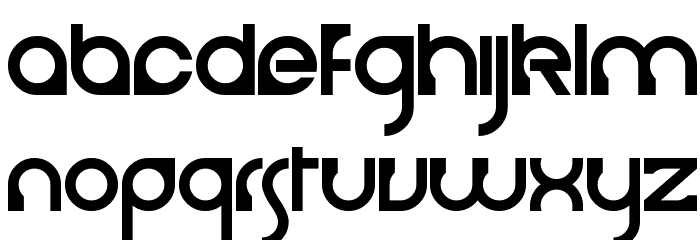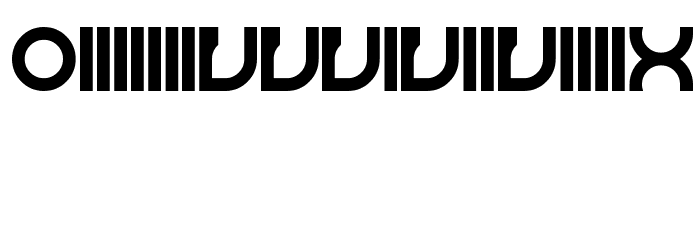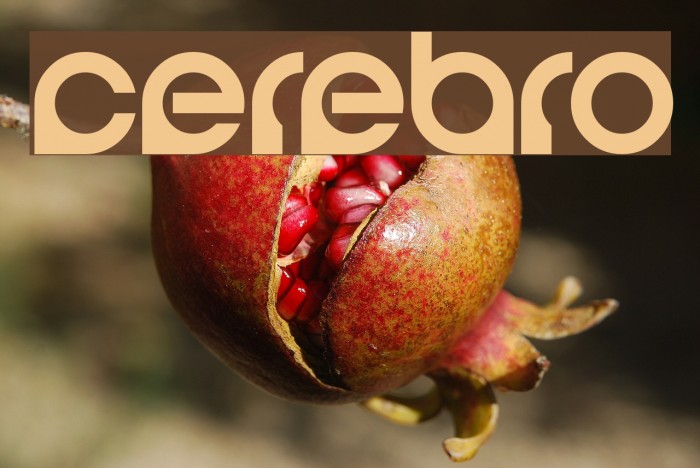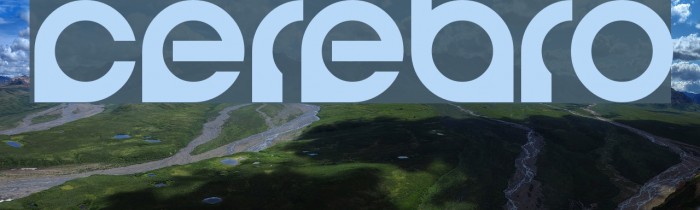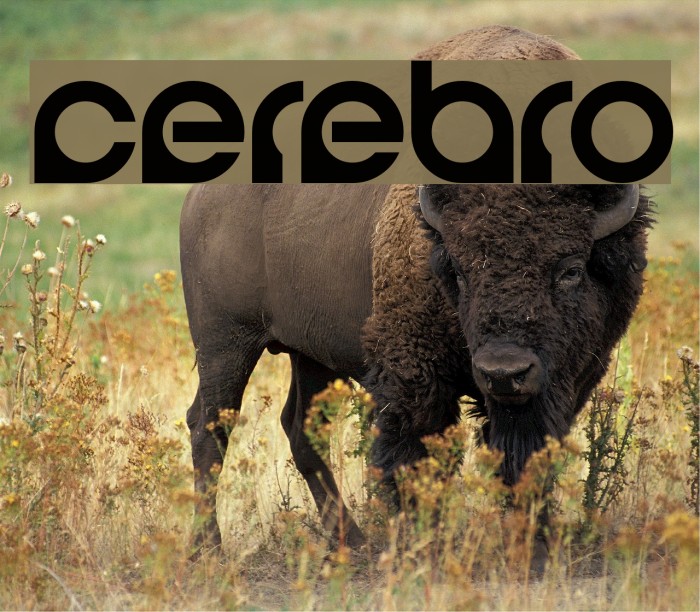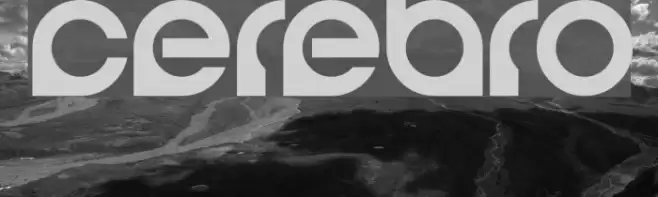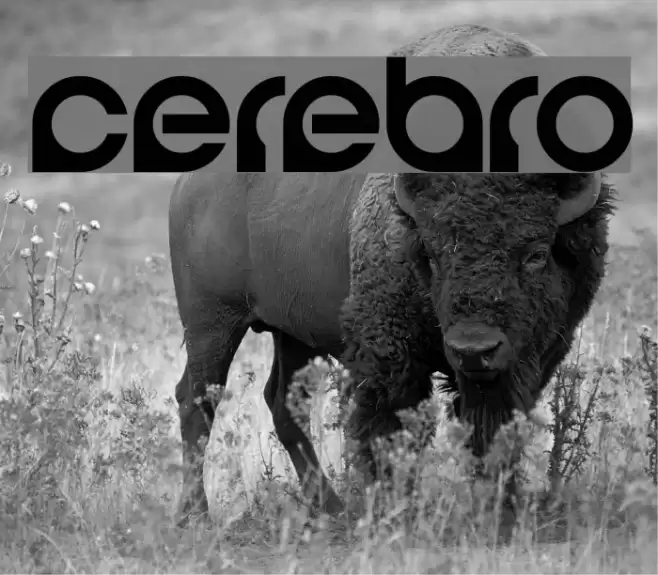
Cerebro Font
This font features a bold, geometric design with a futuristic and modern aesthetic. The characters are constructed with clean, circular shapes and straight lines, creating a harmonious balance between curves and angles. The uppercase and lowercase letters maintain a consistent style, emphasizing symmetry and uniformity. The numbers and special characters follow the same design principles, ensuring a cohesive look across all elements. This font's unique style makes it stand out, offering a visually striking appearance that is both contemporary and versatile.
- Proposed Projects: Ideal for technology branding, modern advertising, sci-fi themed projects, and innovative product packaging.